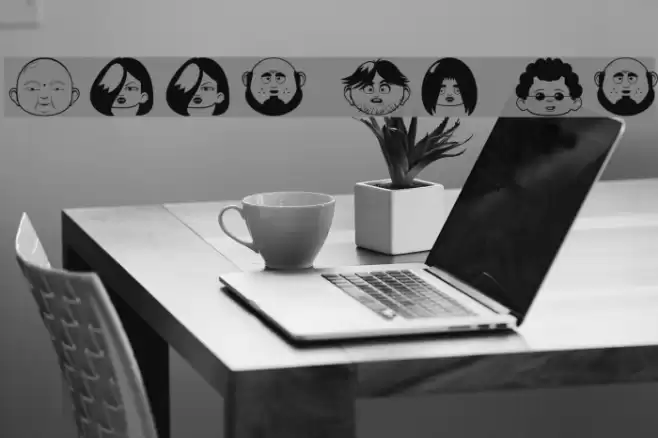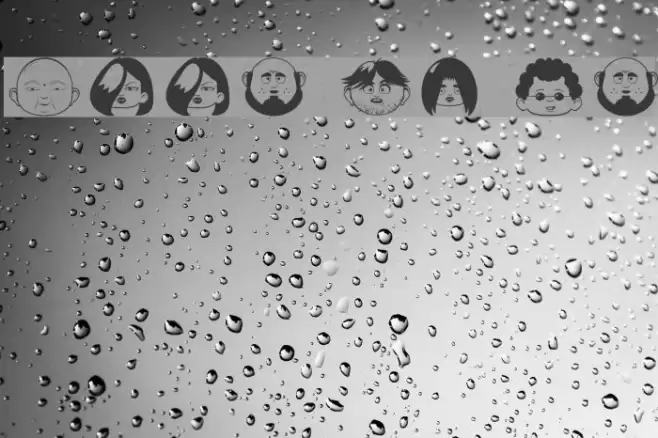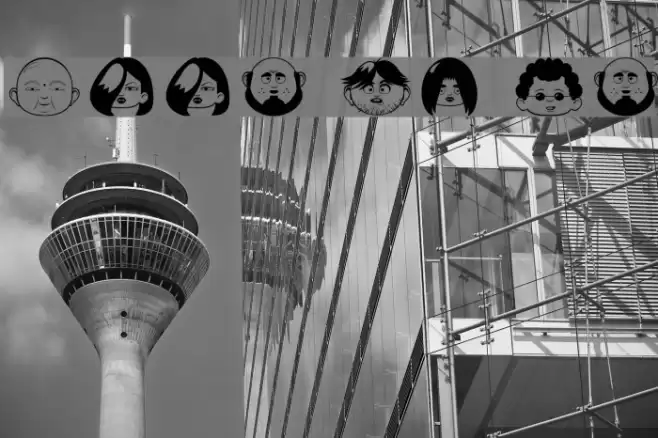
Keep It Up Font
Keep It Up Description
A playful and whimsical decorative font where each character is represented by a unique cartoon face, featuring a variety of hairstyles, expressions, and facial features. The style is bold and highly illustrative, with thick lines and high contrast between black and white areas. Each glyph is distinct, making the set visually engaging and suitable for informal or creative contexts.
Cartoon face glyphs form a bold, playful decorative font from Uncategorized fonts.
- Proposed Projects: Children’s books, party invitations, comic strips, playful branding, educational materials, posters.
- Overall Style: Playful, Whimsical, Decorative
- Use Case: Logos, Headlines, Posters, Children’s materials